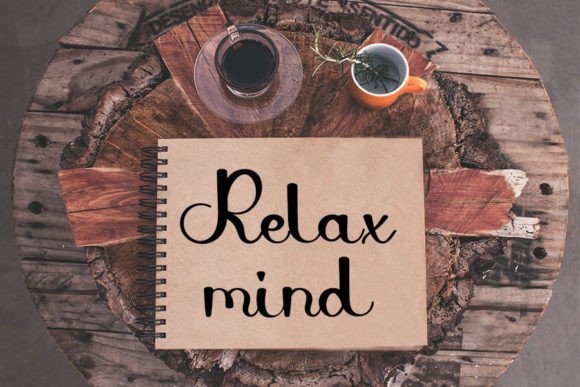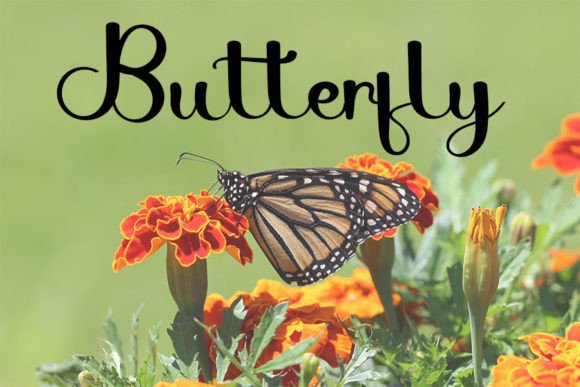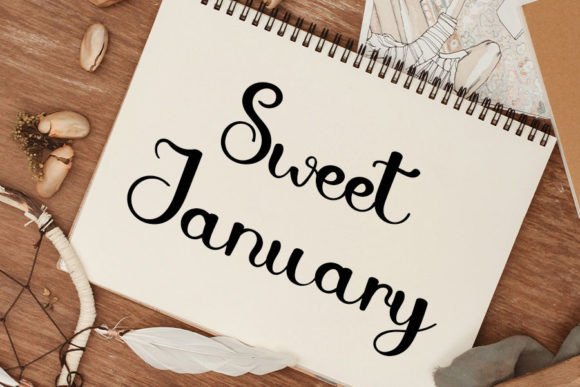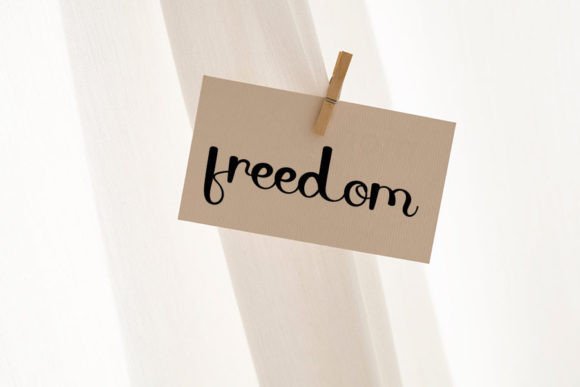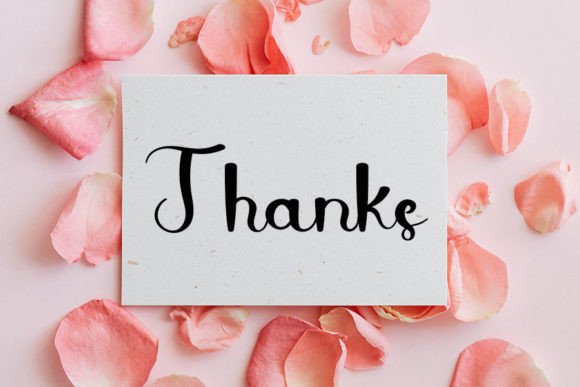
Pineapple Font
About Pineapple Font
**Pineapple Font: Friendly Handwritten Elegance with a Quirky Twist**
Introducing Pineapple, a friendly handwritten font crafted with a touch of elegance. This clean and slightly quirky font is the ideal choice for your logos, branding, social media posts, and creative DIY projects. Here’s why Pineapple is the perfect fit for adding a touch of charm to your designs:
**Friendly Elegance:** Pineapple combines friendliness with a touch of elegance, striking a balance that’s visually appealing and welcoming.
**Versatile Application:** Whether you’re designing logos, branding materials, social media posts, or engaging in crafty DIY projects, Pineapple is a versatile font that adapts to various creative needs.
**Clean and Approachable:** The font’s cleanliness and approachability make it suitable for a wide range of design styles and aesthetics.
**Slight Quirkiness:** Pineapple’s subtle quirkiness adds character and individuality to your text, making it memorable and distinct.
**Eye-Catching Yet Refined:** The font manages to be eye-catching while retaining a sense of refinement, ensuring that your designs stand out for the right reasons.
**Crafty DIY Projects:** Pineapple is particularly well-suited for crafty DIY projects, giving your creations a handmade, personalized touch.
**Distinctive Logo Design:** Use Pineapple to create distinctive and memorable logos that leave a lasting impression on your audience.
**Branding Brilliance:** Pineapple is a font that can elevate your branding materials, infusing them with a unique personality and style.
**Social Media Charm:** Enhance your social media presence with Pineapple, making your posts and graphics more engaging and inviting.
**Creative Flexibility:** Pineapple offers creative flexibility, allowing you to explore different design possibilities and styles.
**Friendly Personality:** The font’s friendly personality makes it perfect for conveying warm and approachable messages in your designs.
**Elegant Simplicity:** Pineapple embodies elegant simplicity, ensuring that your content remains clear, concise, and aesthetically pleasing.
**Attention-Grabbing:** Despite its simplicity, Pineapple has an attention-grabbing quality that ensures your designs capture your audience’s gaze.
**Craftsmanship:** Pineapple gives your text a sense of craftsmanship, as if each character were carefully crafted by hand.
**Personalized Touch:** Use Pineapple to add a personalized touch to your projects, creating a sense of connection and authenticity.
**User-Friendly Design:** It’s user-friendly, making it accessible to designers of all levels, from beginners to professionals.
**Creative Expression:** Pineapple encourages creative expression, allowing your designs to reflect your unique style and vision.
**Memorable Identity:** The font helps establish a memorable visual identity for your brand or project, making it easily recognizable.
**Unique Appeal:** Pineapple’s unique appeal sets your text apart from standard fonts, giving your designs character and charm.
**Visual Engagement:** The font engages viewers visually, sparking their interest and curiosity in your content.
**Design Consistency:** Pineapple ensures design consistency across various platforms, both in print and digital media.
**Quirky Elegance:** Its quirky elegance is a distinctive feature that adds a playful yet refined touch to your designs.
**Crafted Perfection:** Pineapple feels like a work of crafted perfection, making it an excellent choice for meticulous design projects.
**Versatile Style:** The font’s versatility allows it to complement a wide variety of design styles, from modern to vintage.
**Creative Spark:** Pineapple ignites the creative spark in your projects, inspiring innovative and imaginative designs.
**Approachable Aesthetic:** Pineapple’s approachable aesthetic welcomes readers and viewers, making your content feel inviting and friendly.
**DIY Creativity:** For DIY enthusiasts, Pineapple is a go-to choice for infusing homemade projects with character and flair.
**Timeless Charm:** The font’s timeless charm ensures that your designs remain relevant and appealing over time.
**Design Delight:** Working with Pineapple is a delightful experience, as it adds a touch of charm and whimsy to your creative work.
**Stand Out Gracefully:** Use Pineapple to stand out gracefully, ensuring that your designs make a positive impact.
**Design with Confidence:** Design with Pineapple confidently, knowing that it brings a balance of elegance and approachability to your projects.
**Charming Character:** The font’s charming character infuses your text with personality and uniqueness.
**Unleash Creativity:** Unleash your creativity with Pineapple, exploring its potential to enhance your design concepts.
**Quirky and Elegant:** Pineapple strikes a perfect balance between quirky and elegant, offering a style that’s both playful and sophisticated.
**Personalized Branding:** The font helps create personalized branding that reflects your brand’s personality and values.
**Creative Freedom:** Pineapple offers creative freedom, allowing you to explore different styles and aesthetics while maintaining an underlying sense of elegance and friendliness.
**Design Excellence:** Design with Pineapple to achieve excellence in your creative projects, infusing them with a delightful and engaging aesthetic.